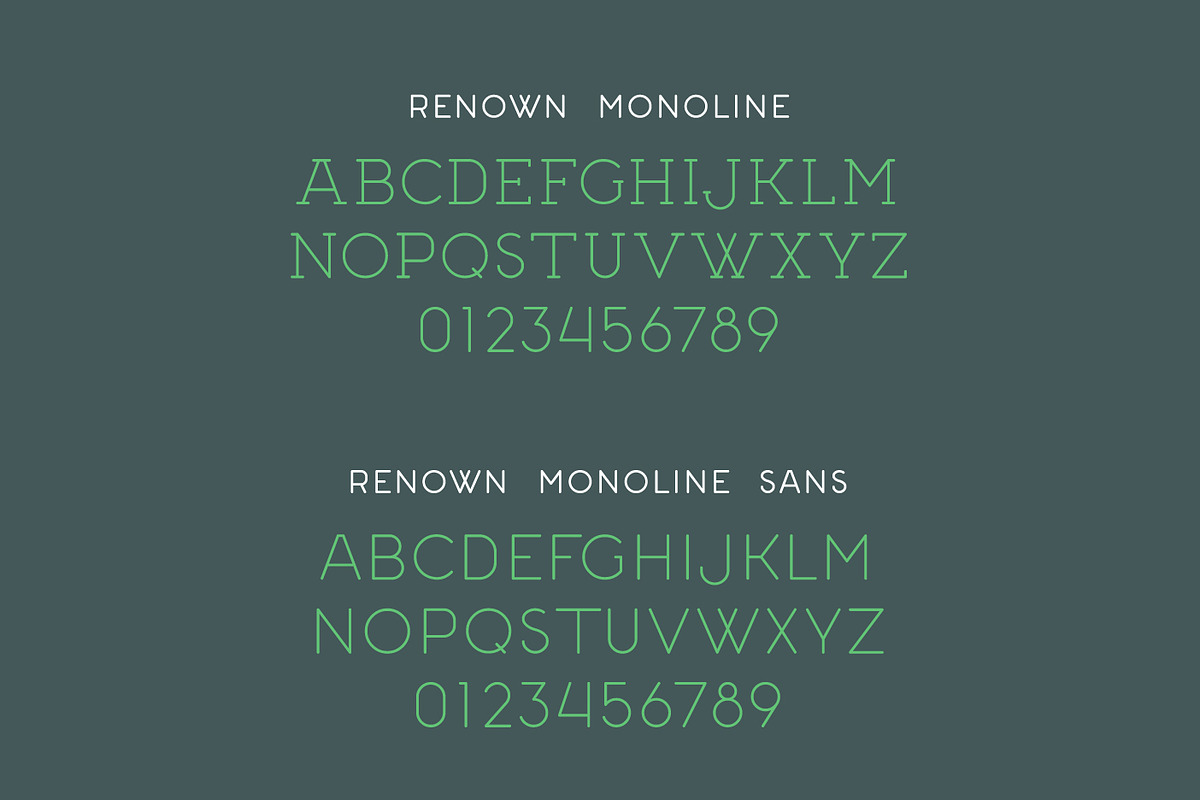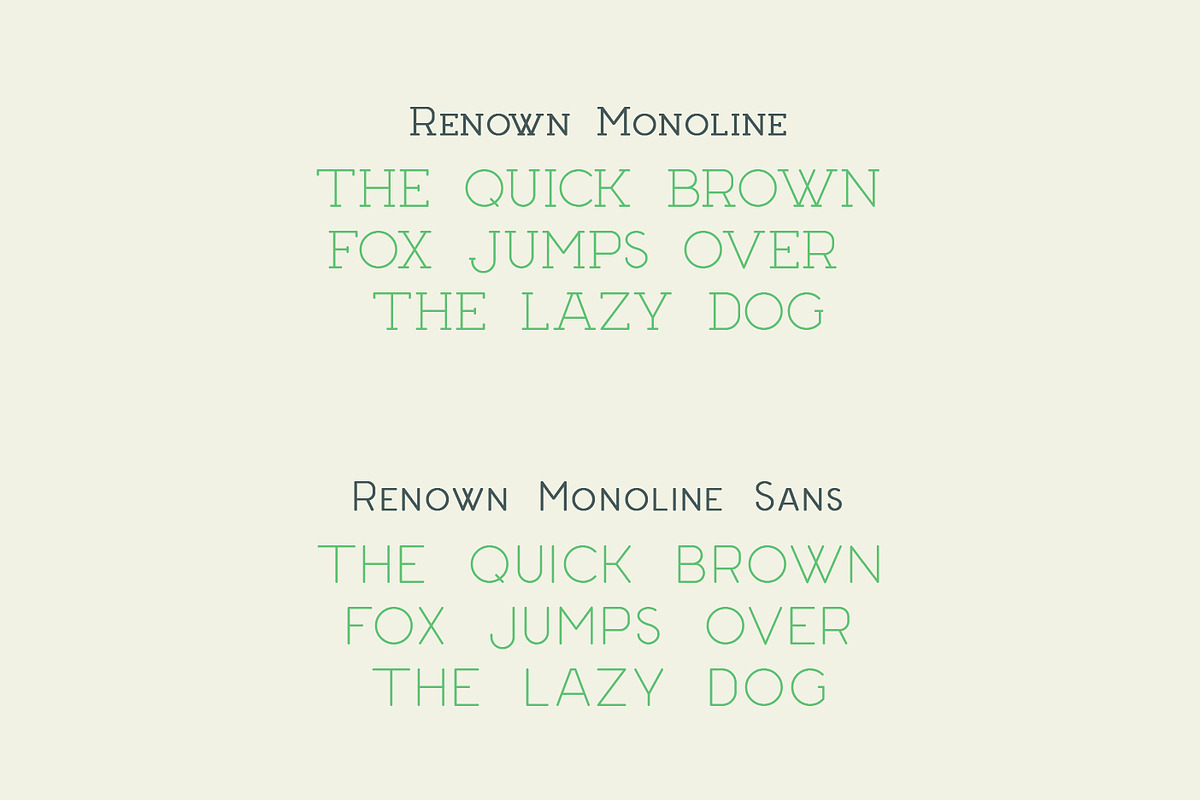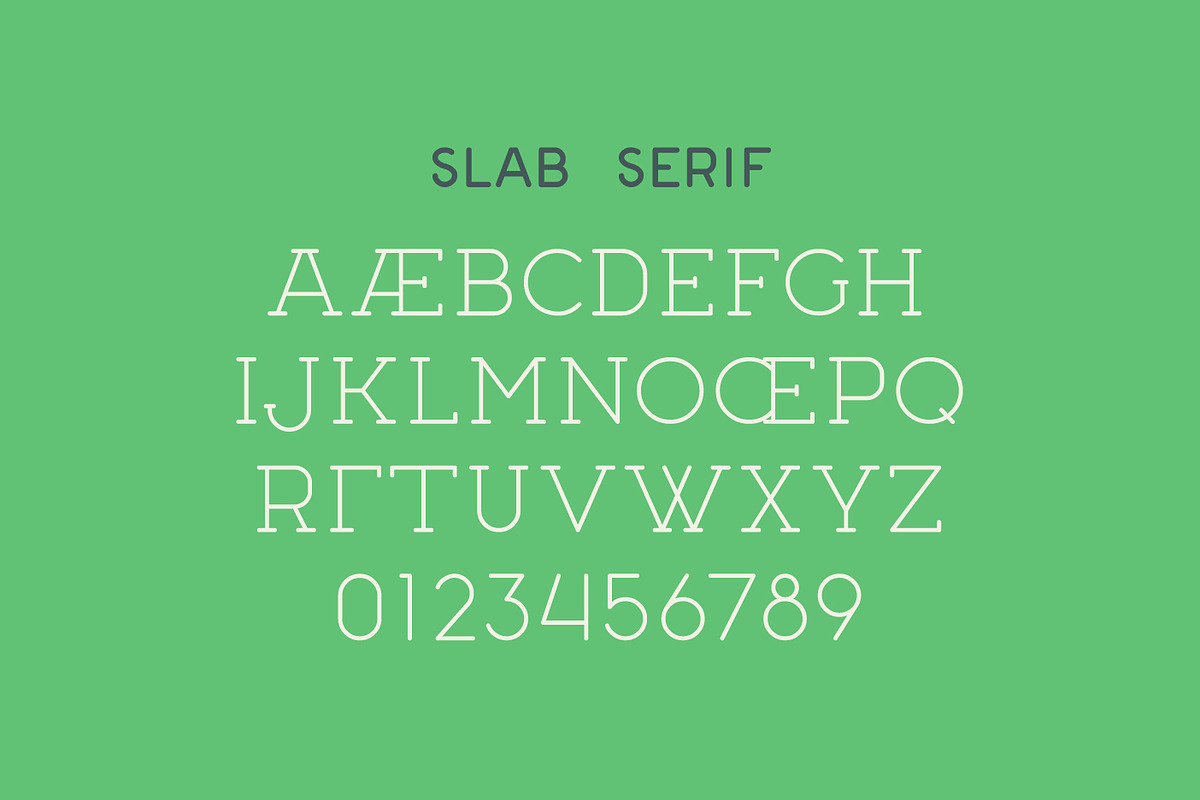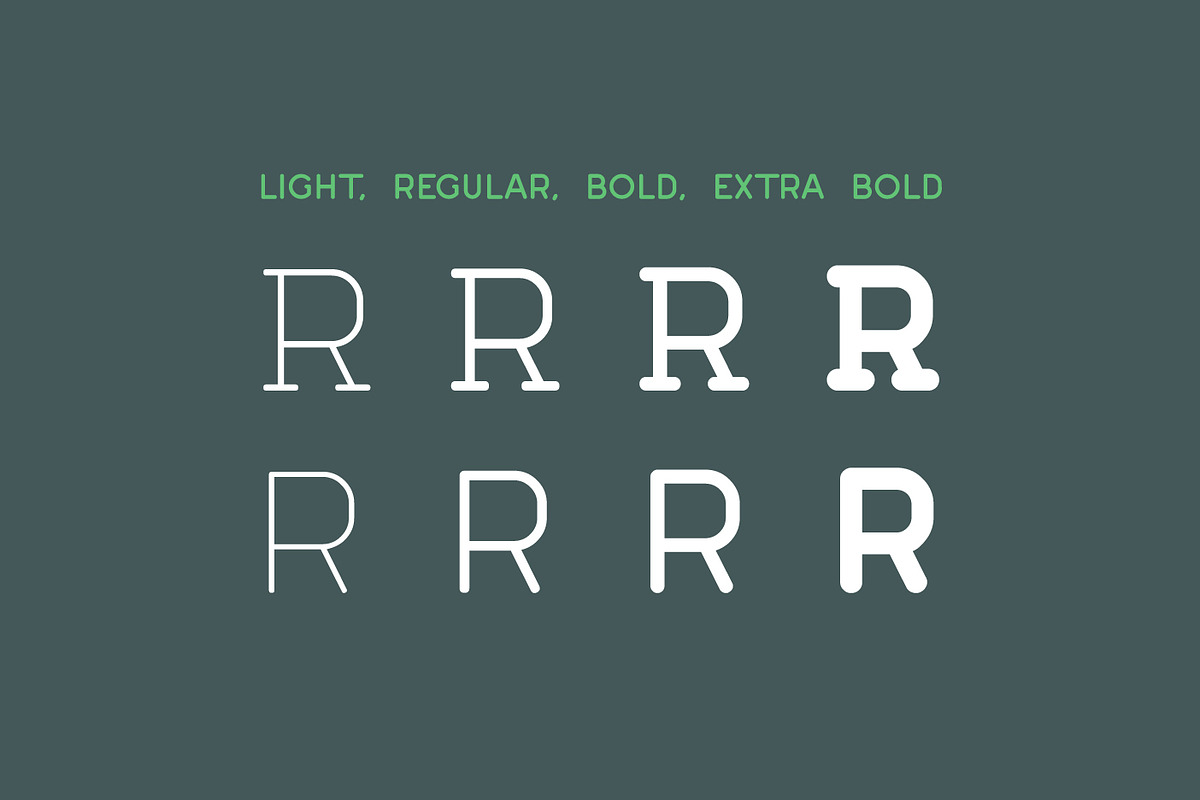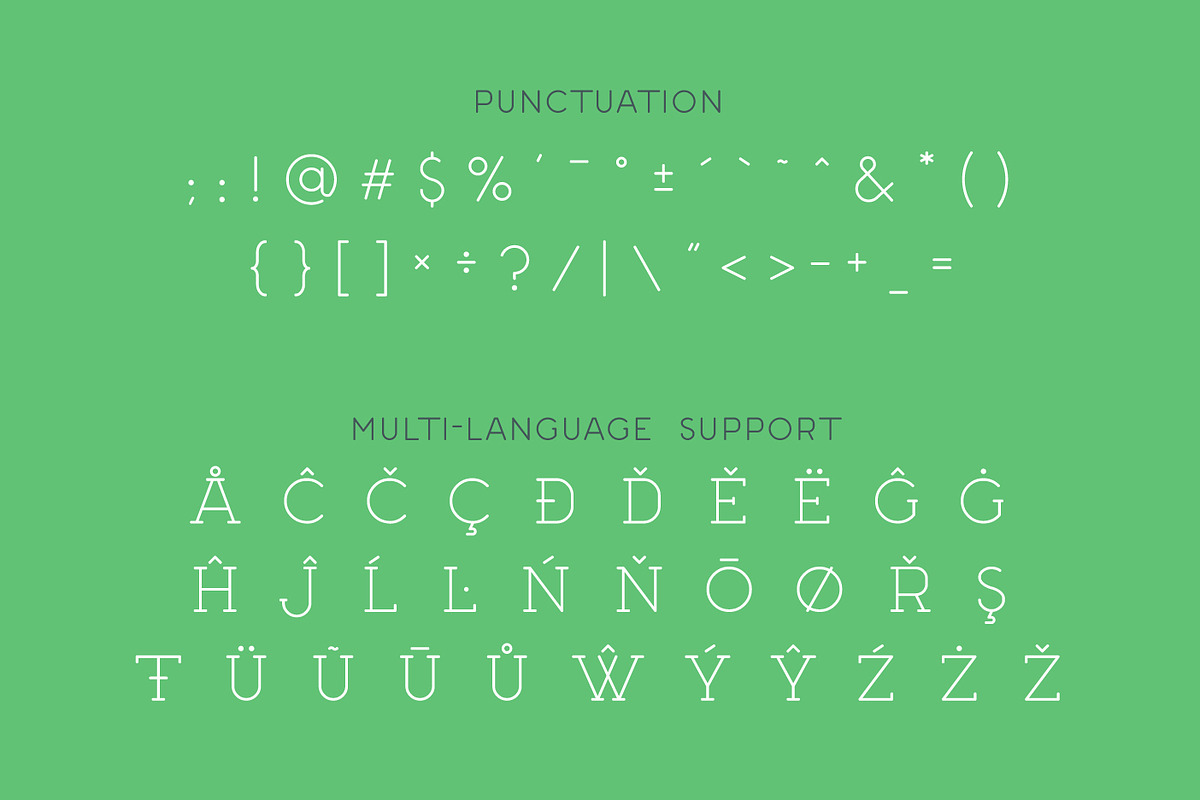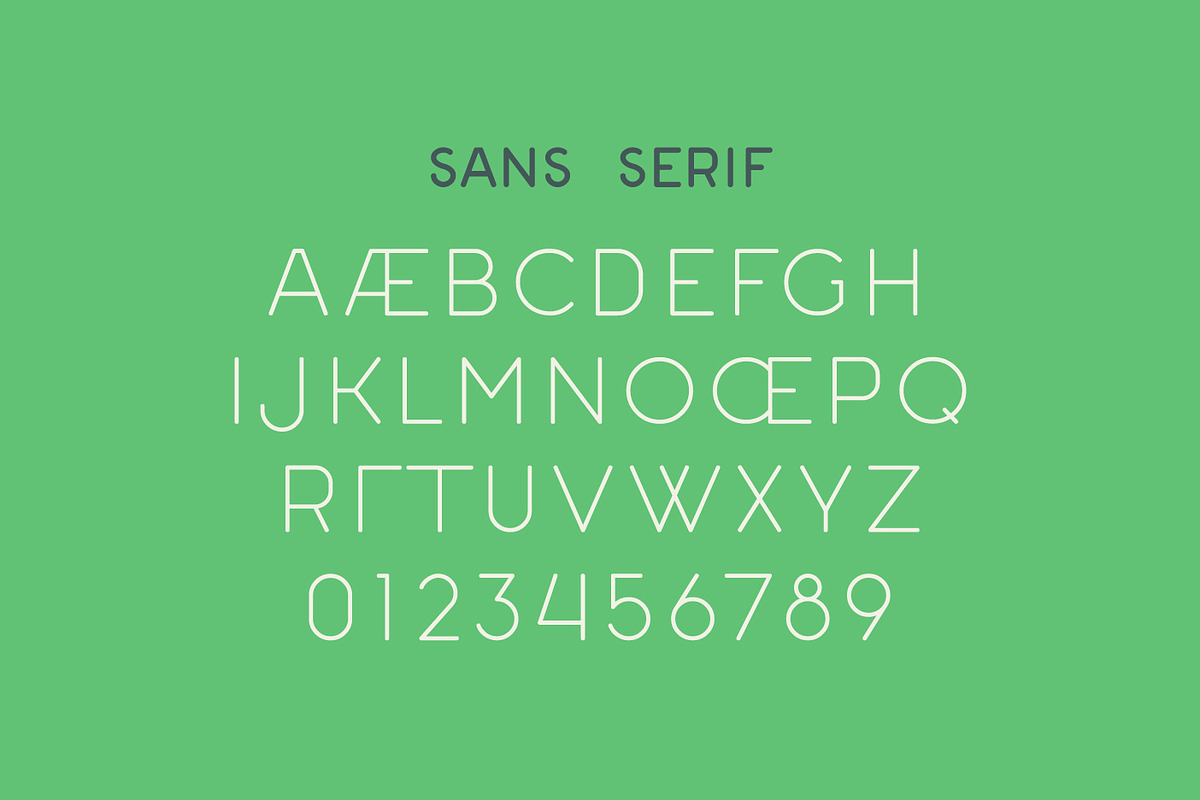
Renown Monoline Font Duo
We are proud to offer your two of our newest fonts, Renown Monoline and Renown Monoline Sans.
The Renown Monoline Family is our newest flagship typeface, featuring slab serif and sans serif fonts in four weights. All fonts feature small caps in the lower case, expert kerning, a full complement of punctuation and accents, and accented characters. This display typeface is perfect for website headings, blog post titles, and advertising materials.